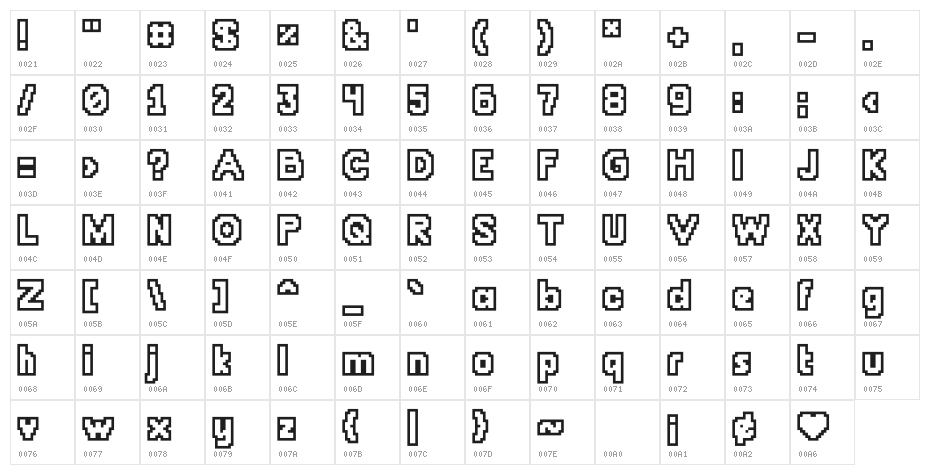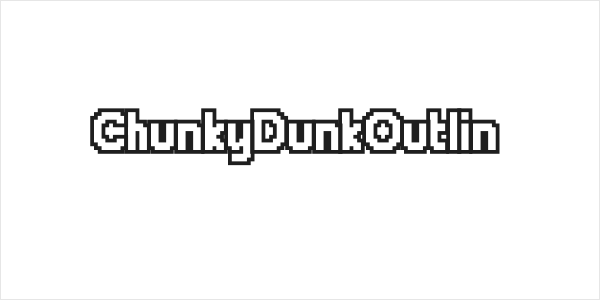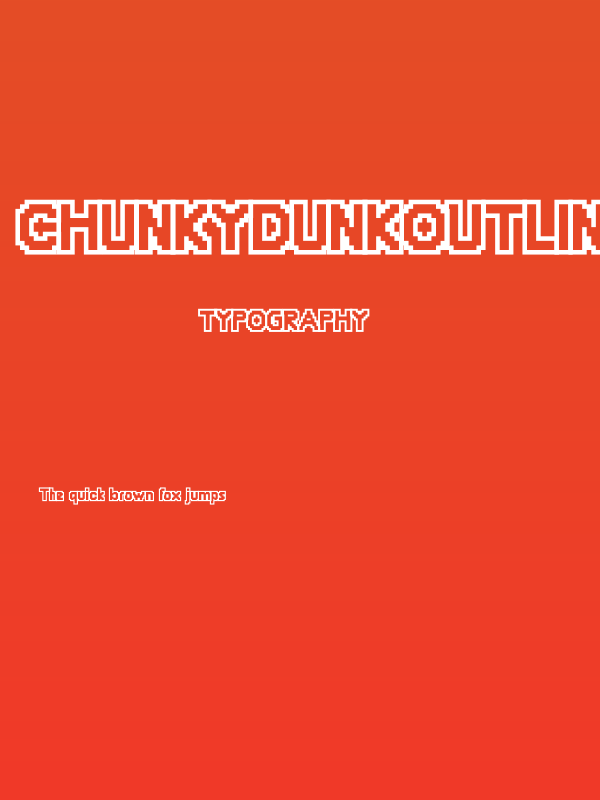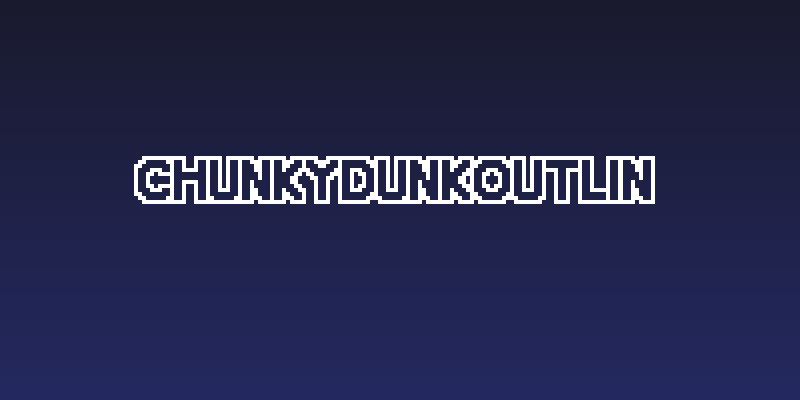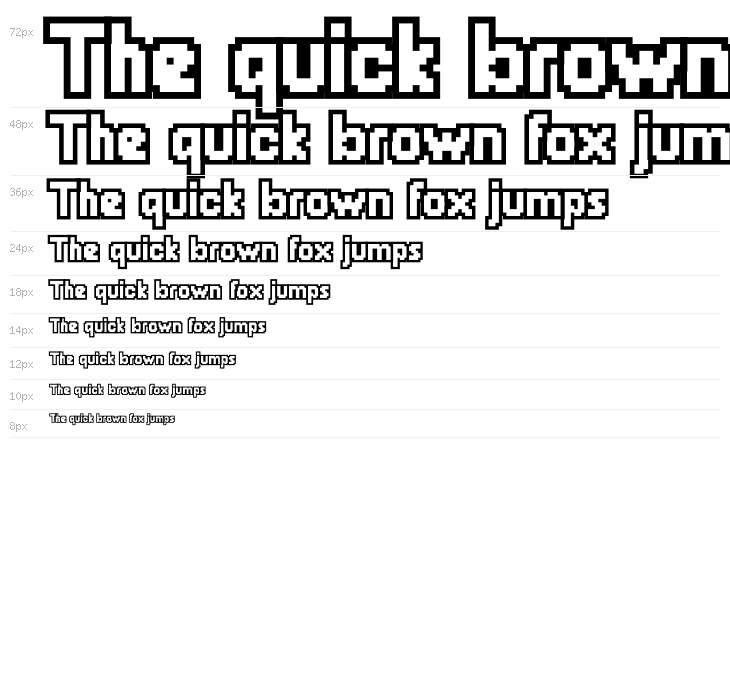
ChunkyDunkOutlin Font
ChunkyDunkOutlin Description
This font features a bold, blocky outline style that gives it a playful and retro appearance. Each character is defined by thick, uniform lines that create a strong visual impact. The uppercase and lowercase letters maintain a consistent height, contributing to a cohesive look. The numerals and special characters follow the same design principles, ensuring uniformity across all elements. The font's geometric shapes and clear outlines make it highly legible, even at smaller sizes. Its unique style is reminiscent of classic arcade games, adding a nostalgic touch to any design.
| Overall Style | Retro, Playful |
| Proposed Projects | Ideal for video game graphics, retro-themed posters, and playful branding projects. |